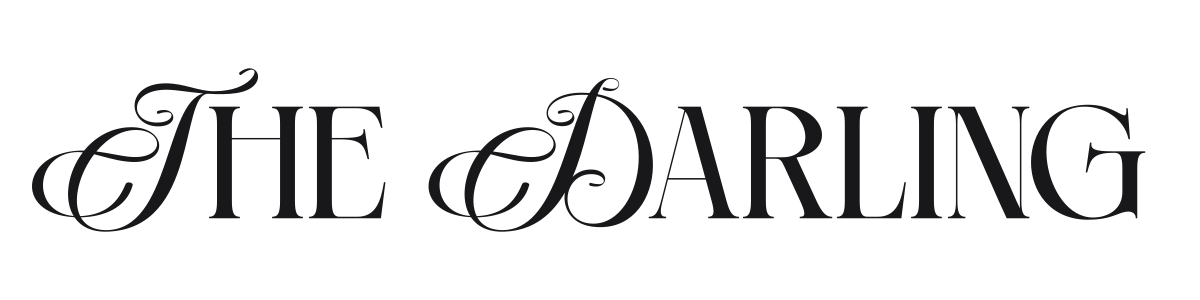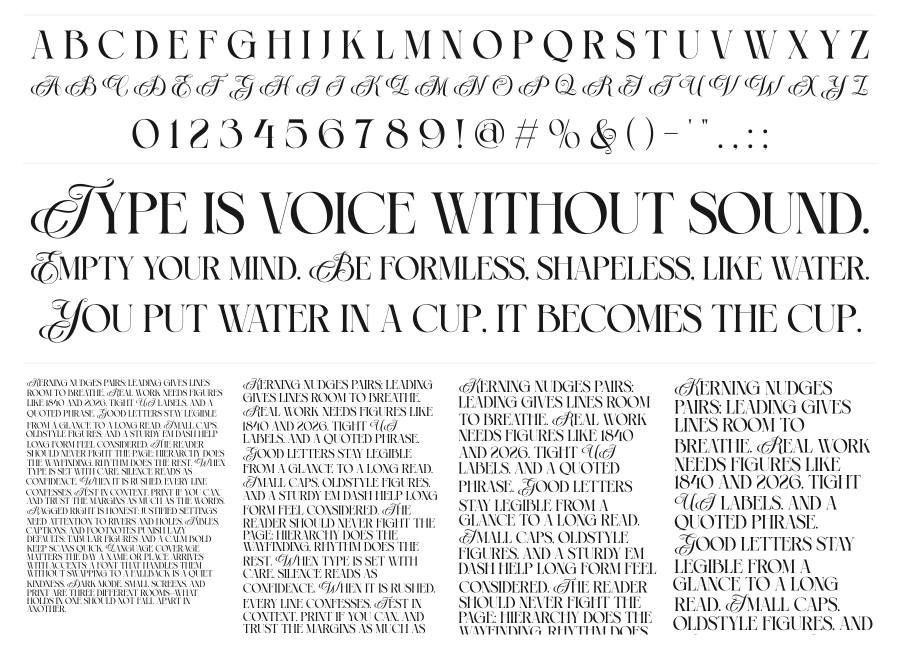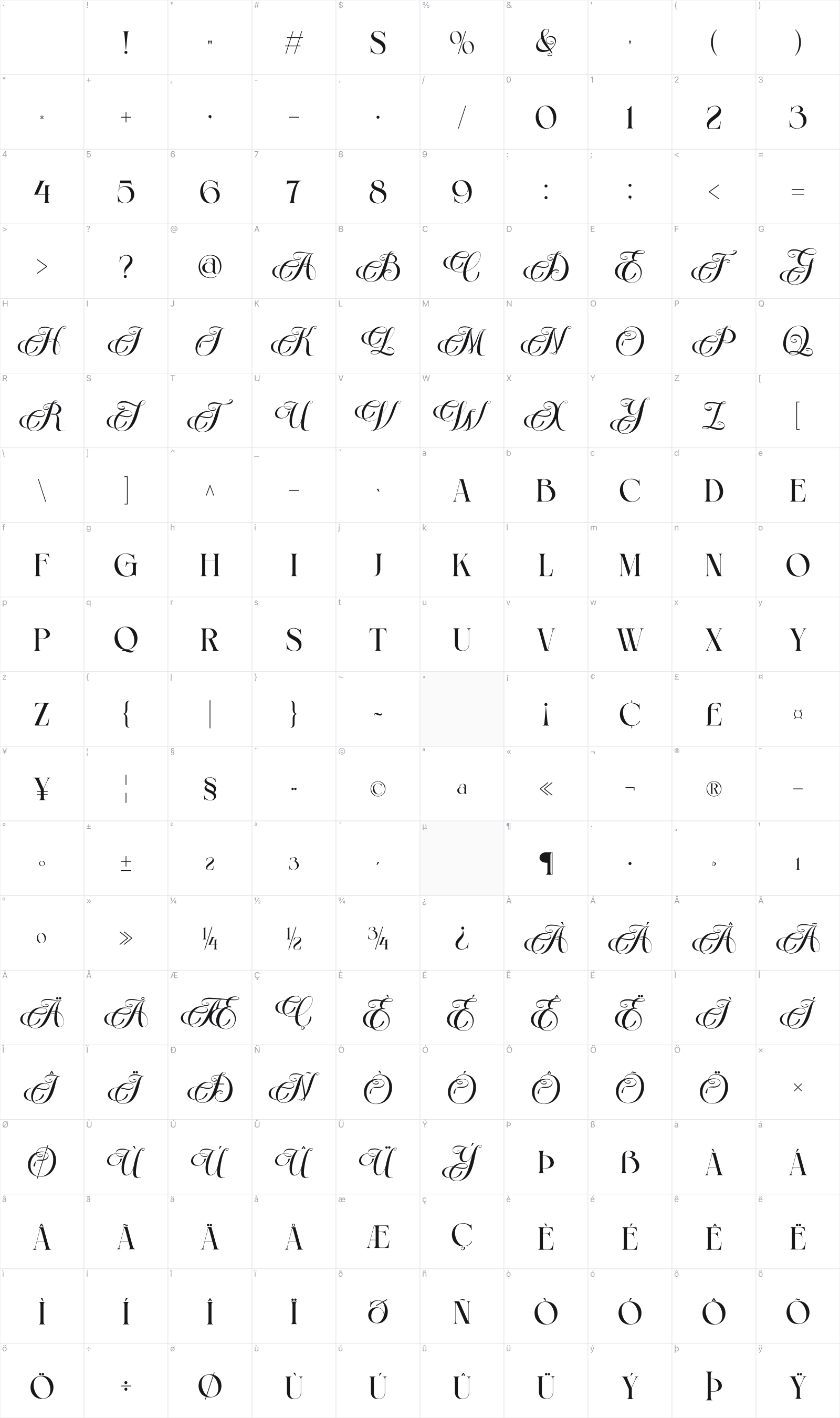
The Darling
The Darling is a high-contrast Didone serif from RantauType with dramatic hairline horizontals and bold vertical stems. The wide, tall proportions and unbracketed serifs give it a polished editorial presence familiar from high-fashion magazines and luxury branding. At large sizes the contrast is striking; the design thrives where elegance is the point.